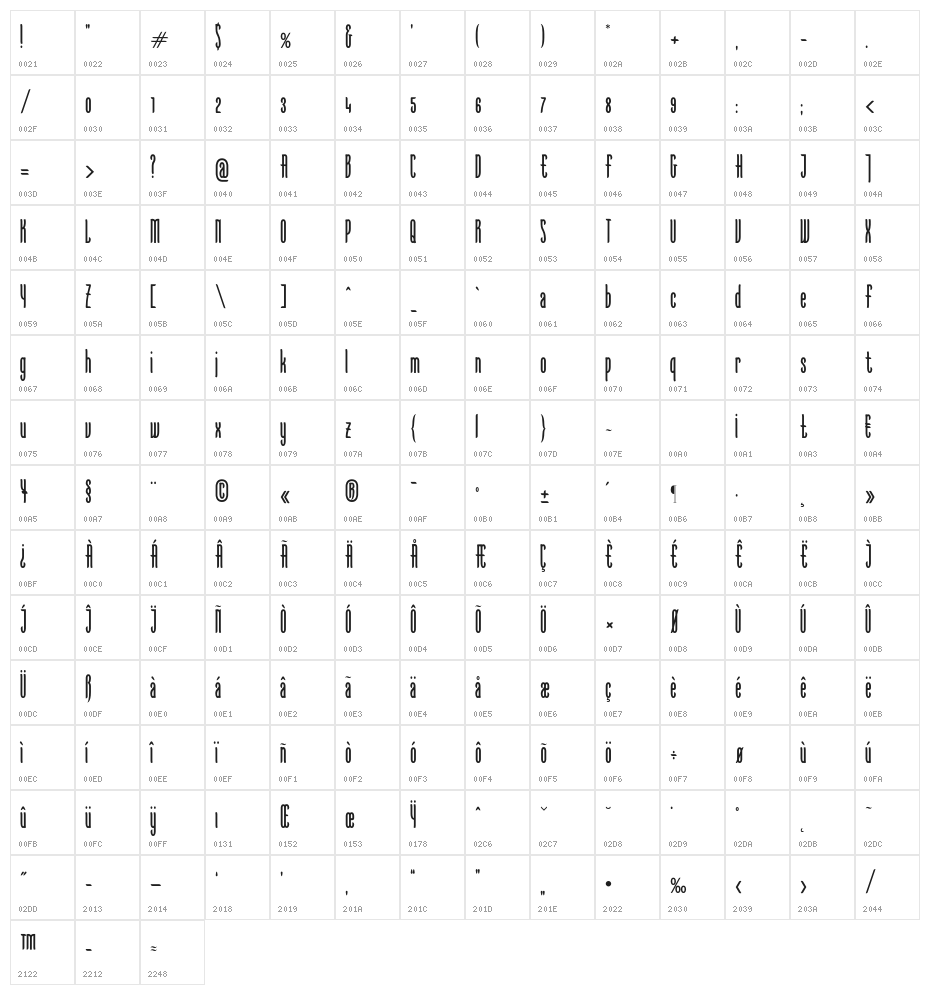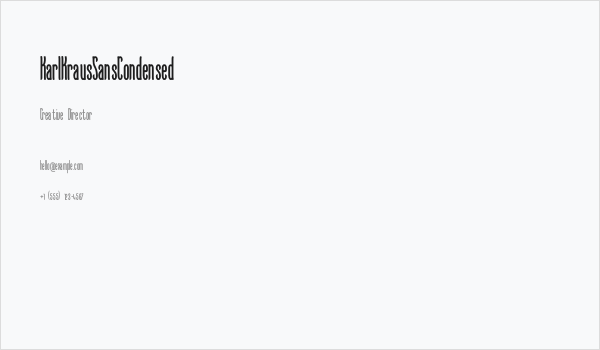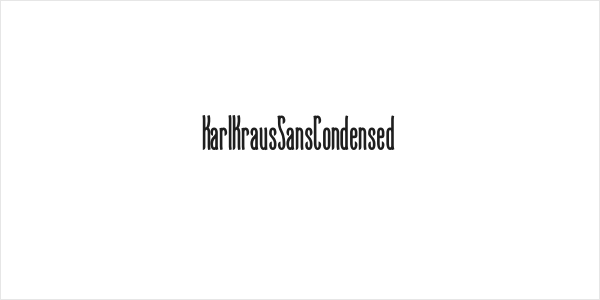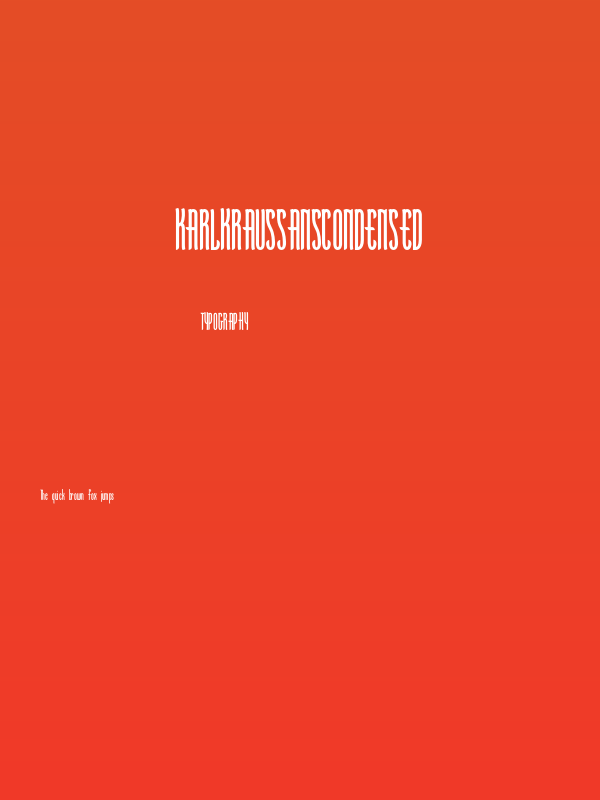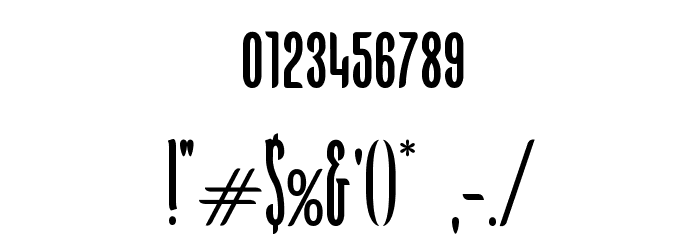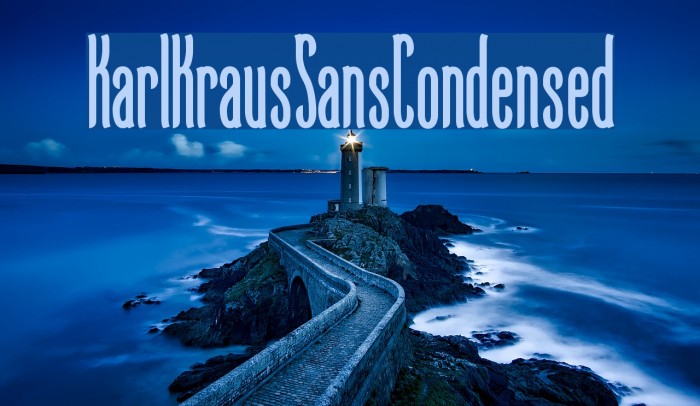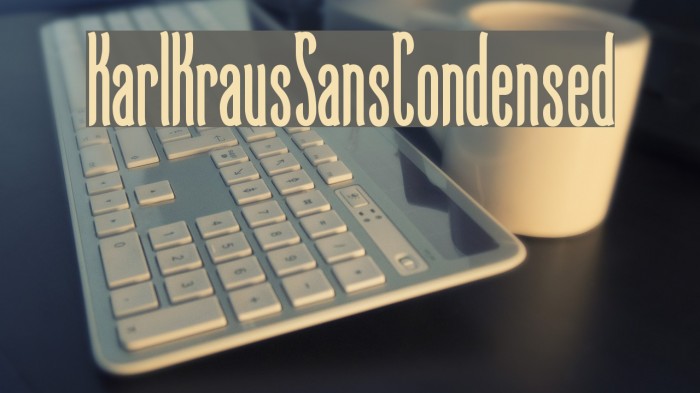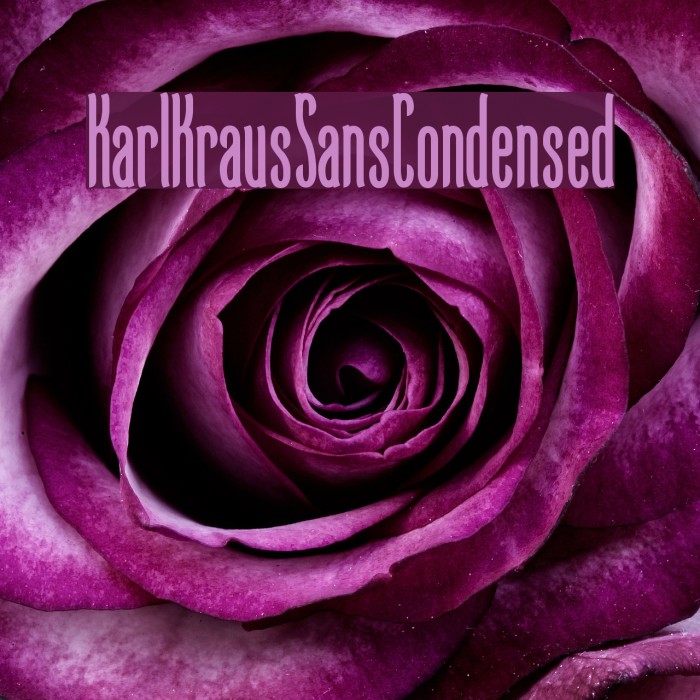
KarlKrausSansCondensed Font
KarlKrausSansCondensed Description
This font features a tall, narrow design with a distinct condensed style, making it ideal for space-saving applications. The characters have a modern, sleek appearance with clean lines and minimal embellishments. The uppercase letters are particularly elongated, giving a sophisticated and elegant look. The lowercase letters maintain a consistent height, ensuring readability. The numerals are straightforward and align well with the overall design. Special characters are crafted to match the font's aesthetic, providing a cohesive look across all glyphs.
| Proposed Projects | Ideal for headlines, posters, and branding where space is limited but impact is needed. |